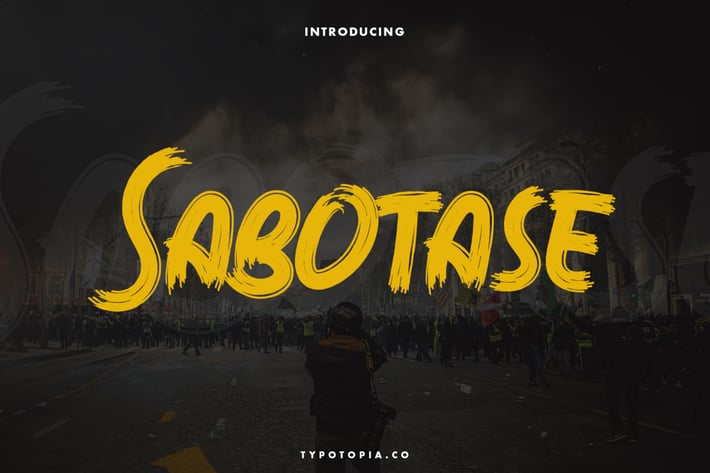
Sabotase – The Brush Font
Introducing Sabotase – The Brush Font an incredibly Unique and Interesting Display Font for Your Designs. This perfect for the purposes of designing templates, brochures, videos, advertising branding, logos and more.